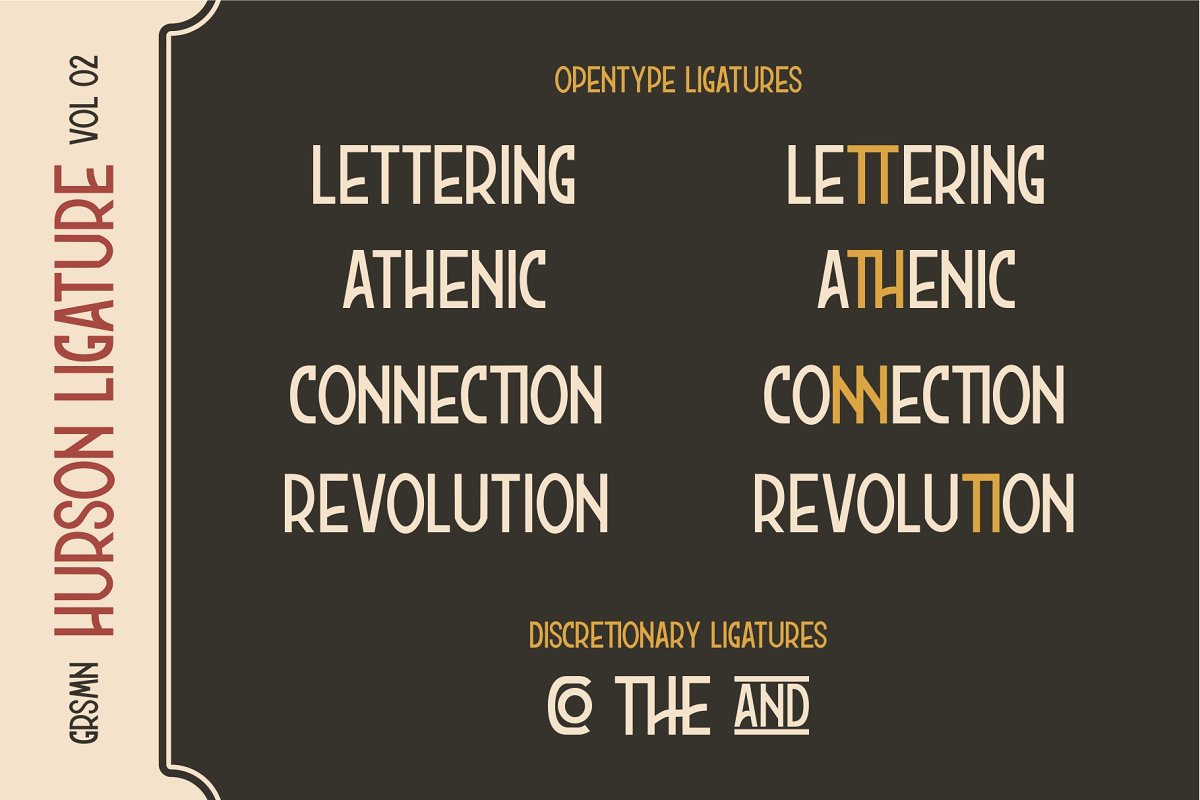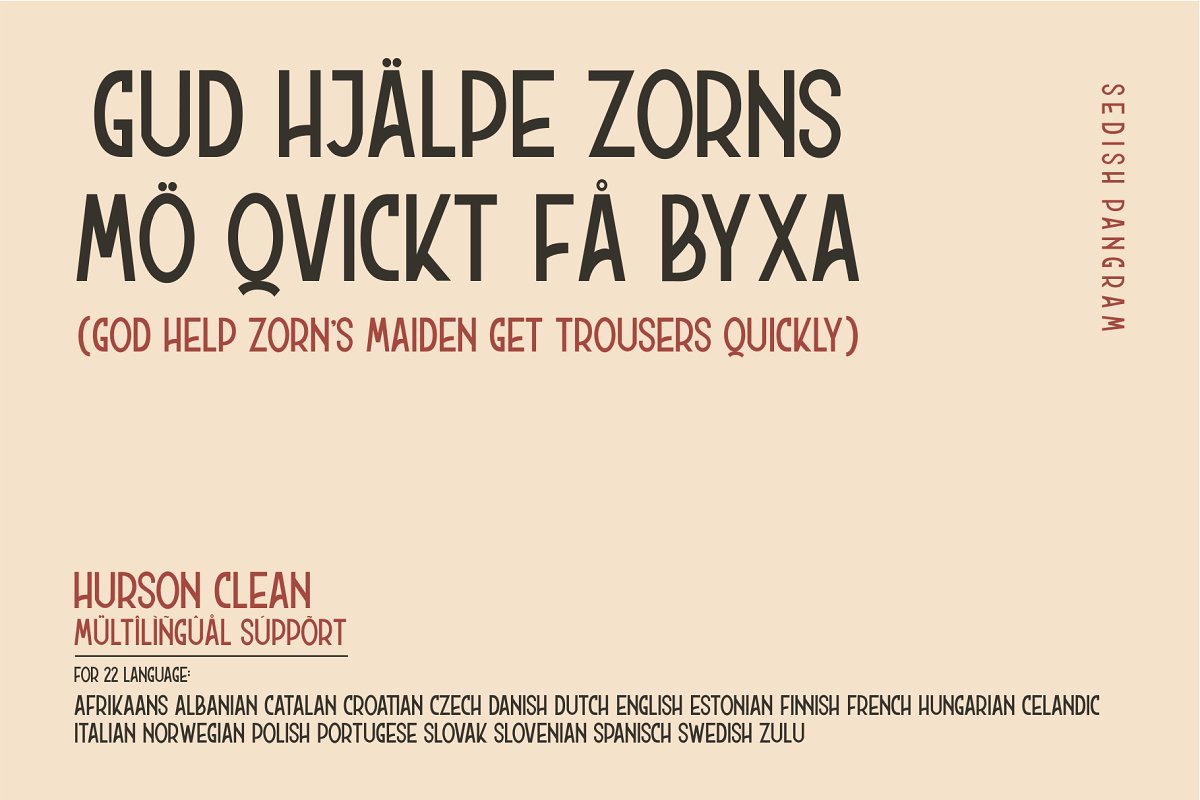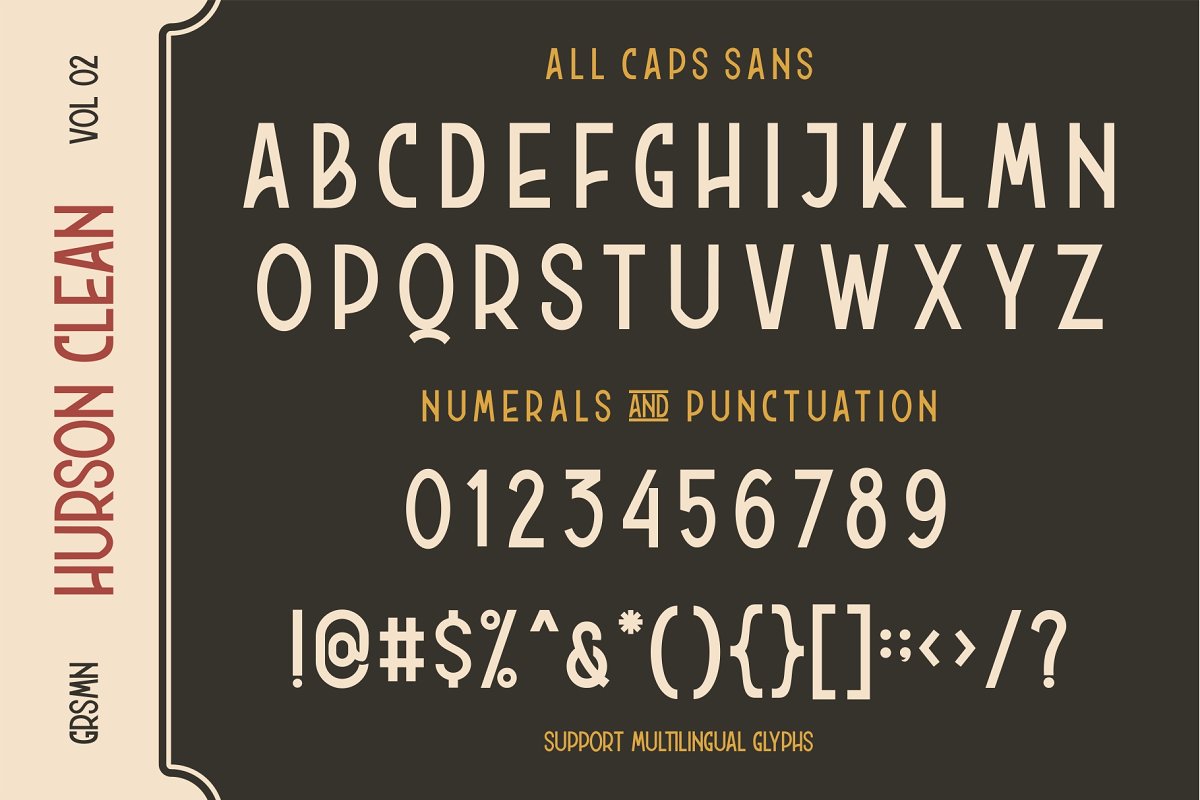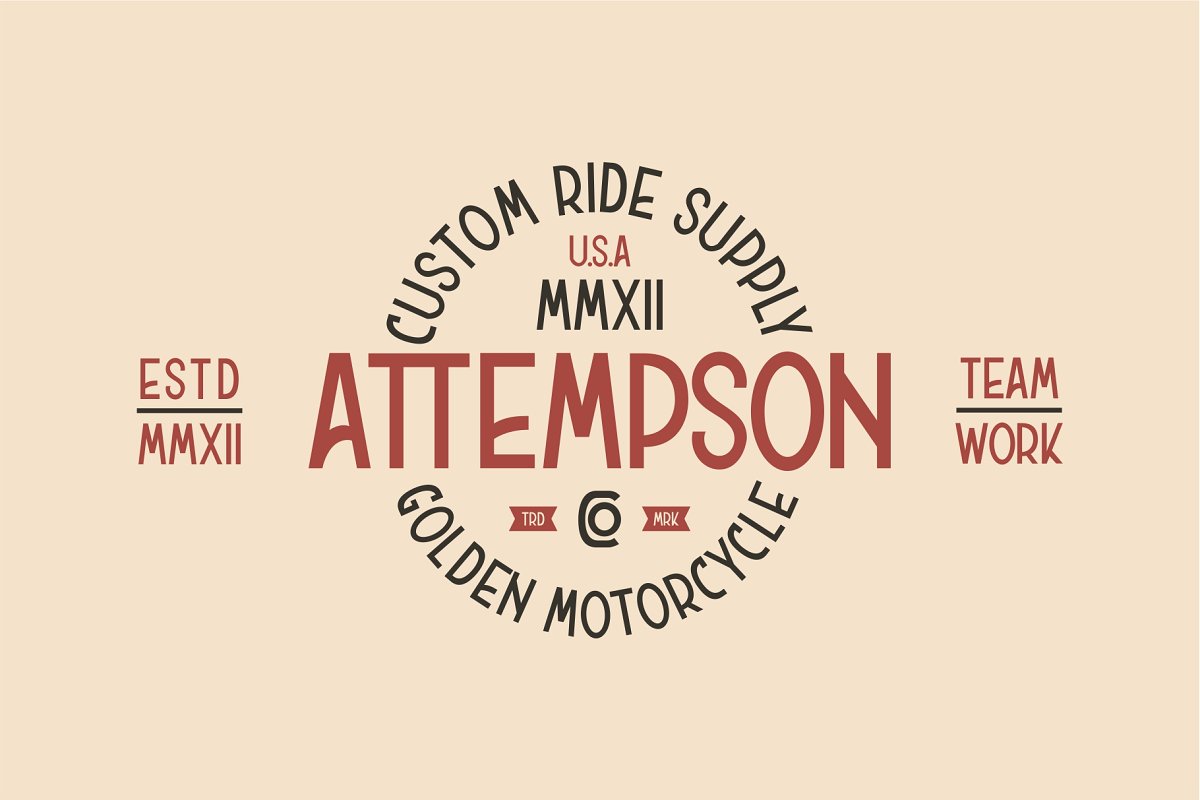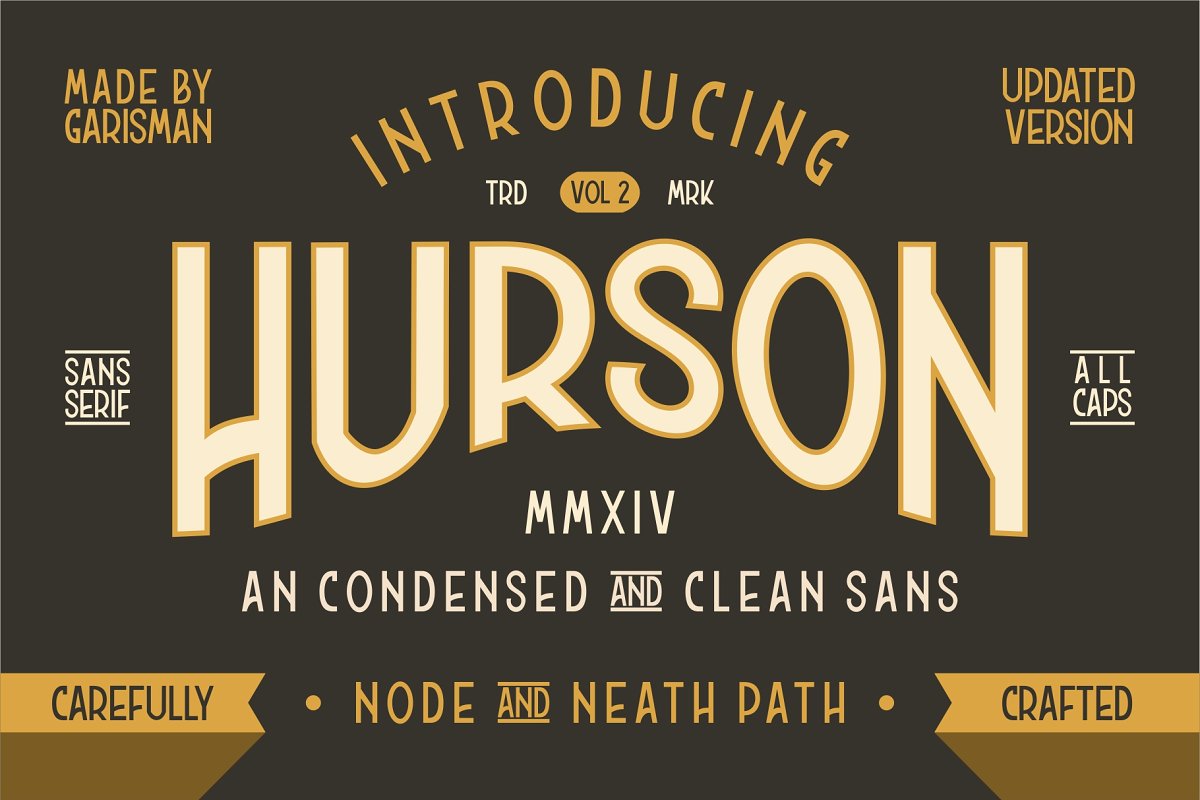
Hurson Clean Typeface
An condensed and clean sans font. Thank you for looking Hurson Clean Font. A modern type style that is perfect for logos, film, video games, packaging, signs, and more! Hurson designed by Garisman Std. Hurson consists of two font styles, Hurson Rough (previous version) and Hurson Clean (latest version) This font gives a feel of vintage, classic, old, handmade looked like. Already PUA Encoded and I think this font is perfect for people looking for vintage aesthetic or handdrawn logo. Suitable for any graphic designs such as branding materials, t-shirt, print, business cards, logo, poster, t-shirt, photography, quotes .etc.